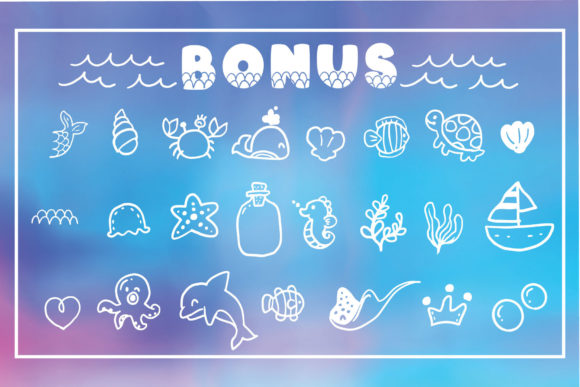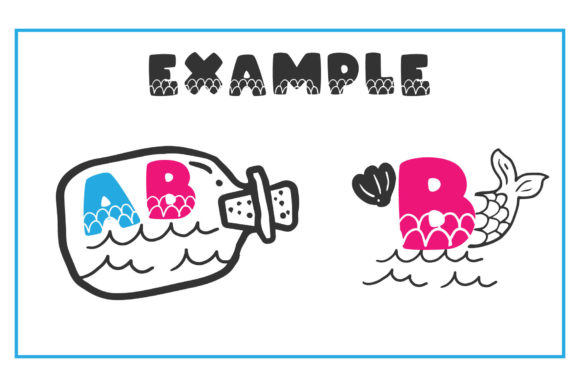
Baby Mermaid Font
Baby Mermaid is a cool and friendly display font. Add this playful and chunky lettered display font to your creations and notice how they instantly come to life.